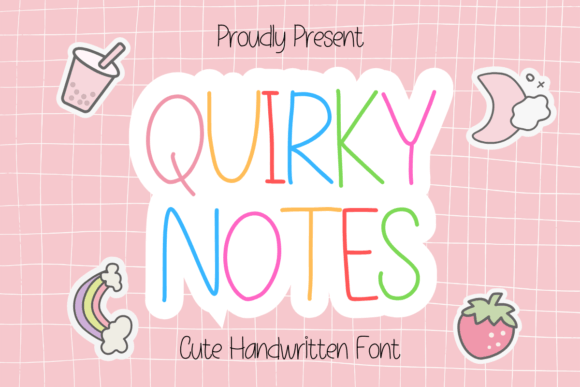
Introducing Quirky Notes Font, the perfect choice for adding a touch of whimsy and uniqueness to your designs! Created by the talented team at Minimalist Eyes, this simple handwritten font is sure to catch your eye and brighten up any project.
With its playful and quirky style, Quirky Notes Font is a must-have for anyone looking to add a dose of creativity to their designs. Whether you're designing a logo, wedding invitation, quote, or t-shirt, this font will infuse your work with a sense of joy and individuality.
Imagine the possibilities with Quirky Notes Font! Let your creativity flow as you create eye-catching advertisements, captivating print media, and stunning magazine layouts. This font is incredibly versatile and can be used in a wide range of projects, making it a valuable addition to your font collection.
But what sets Quirky Notes Font apart from the rest? It's the attention to detail and the carefully crafted letterforms that make this font truly special. Each character has been meticulously designed to ensure a harmonious flow and a seamless look.
Not only does Quirky Notes Font add a delightful touch to your designs, but it also evokes a sense of warmth and nostalgia. It's like capturing the essence of handwritten notes and quotes, bringing a personal and heartfelt touch to your projects.
Quirky Notes Font - because every design deserves a touch of whimsy.